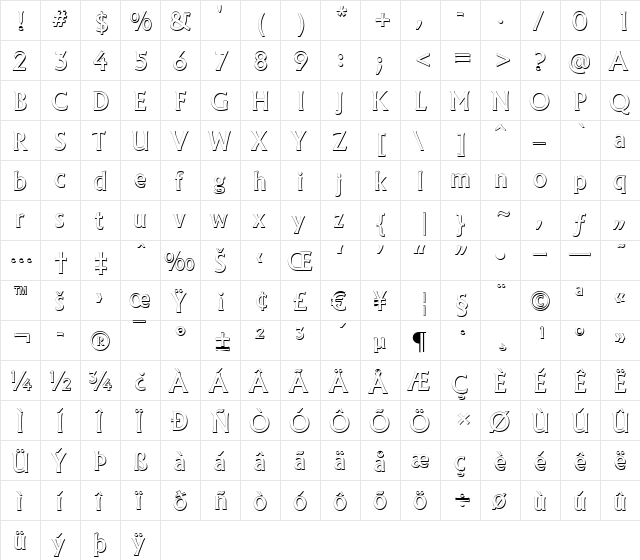
a_Allgidus3Dxtr Regular
| Designer | W.Chufarofsky & M.Slutsker |
Design Context for a_Allgidus3Dxtr Typeface
a_Allgidus3Dxtr takes a measured approach to typography — its balanced proportions and neutral character make it a reliable workhorse for both digital and print work.